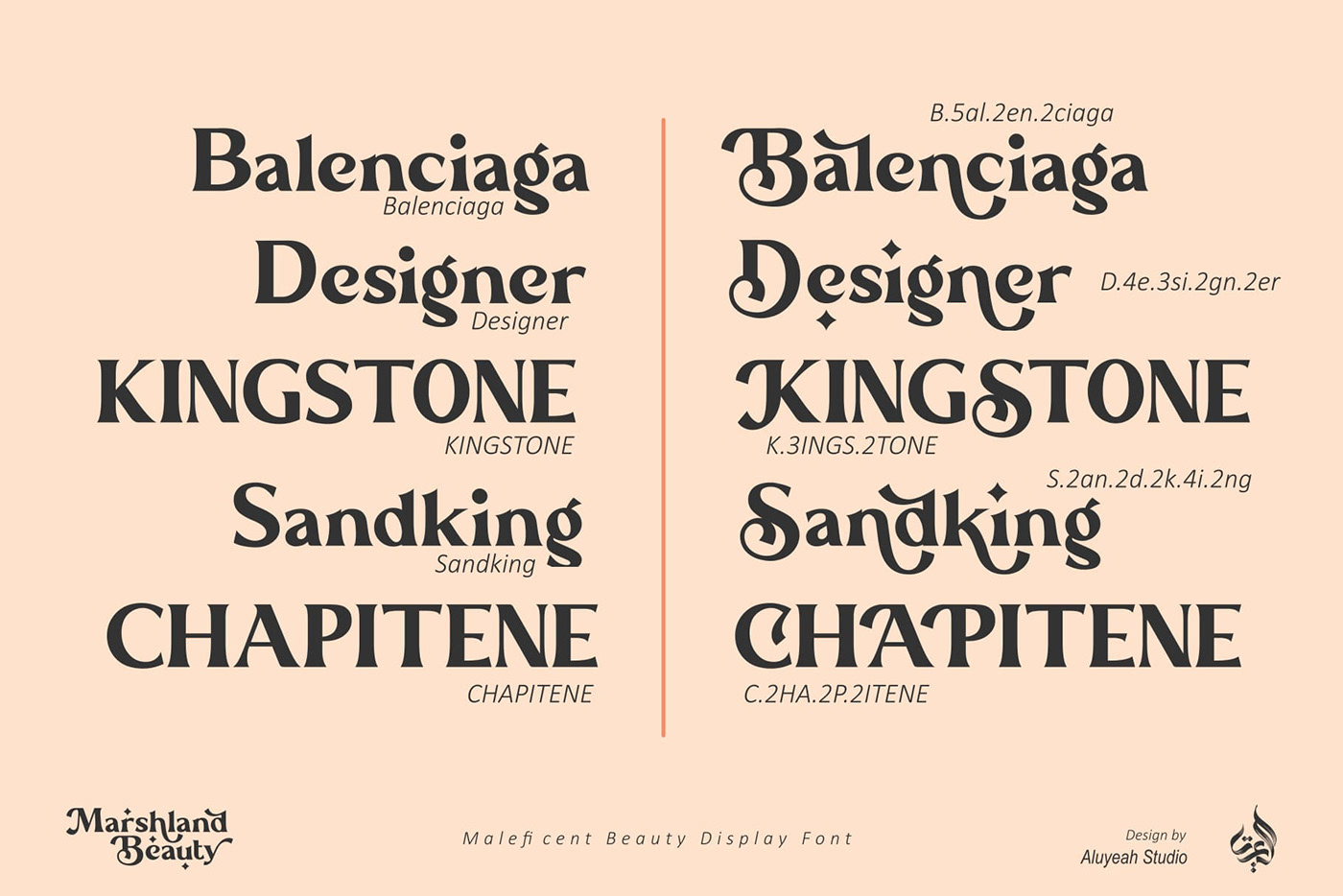
Marshland Beauty
Marshland Beauty, from Aluyeah Studio, a Maleficent Beauty Display Font with 110+ Stunning Summer Vibe Alternates.
Very suitable for magazine, headline, website, ads, product package and all type of design project you have.